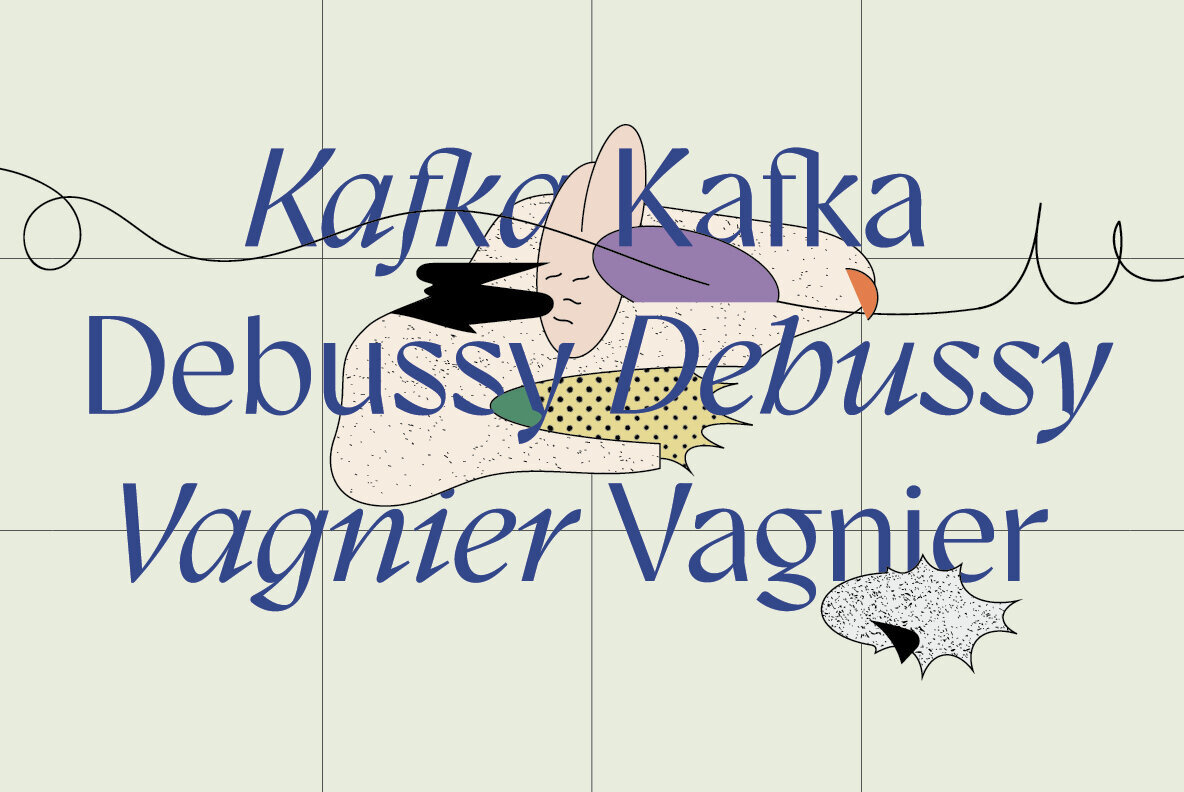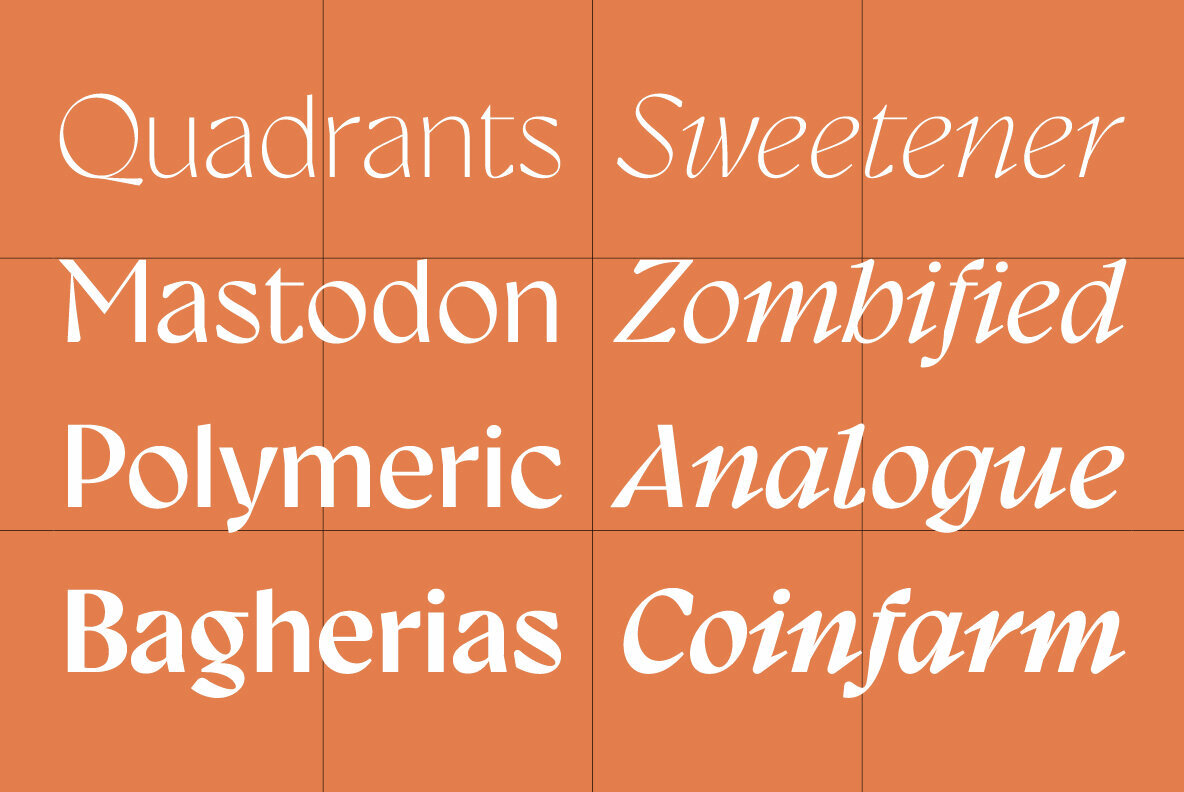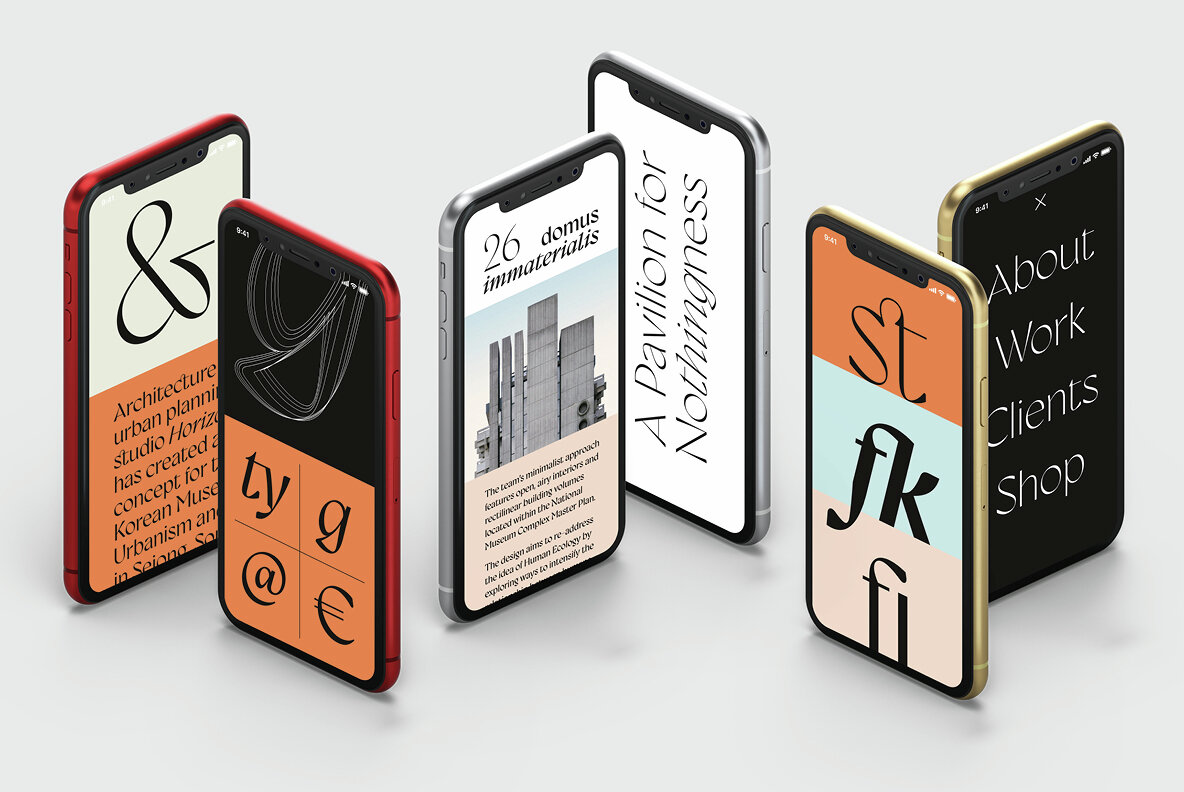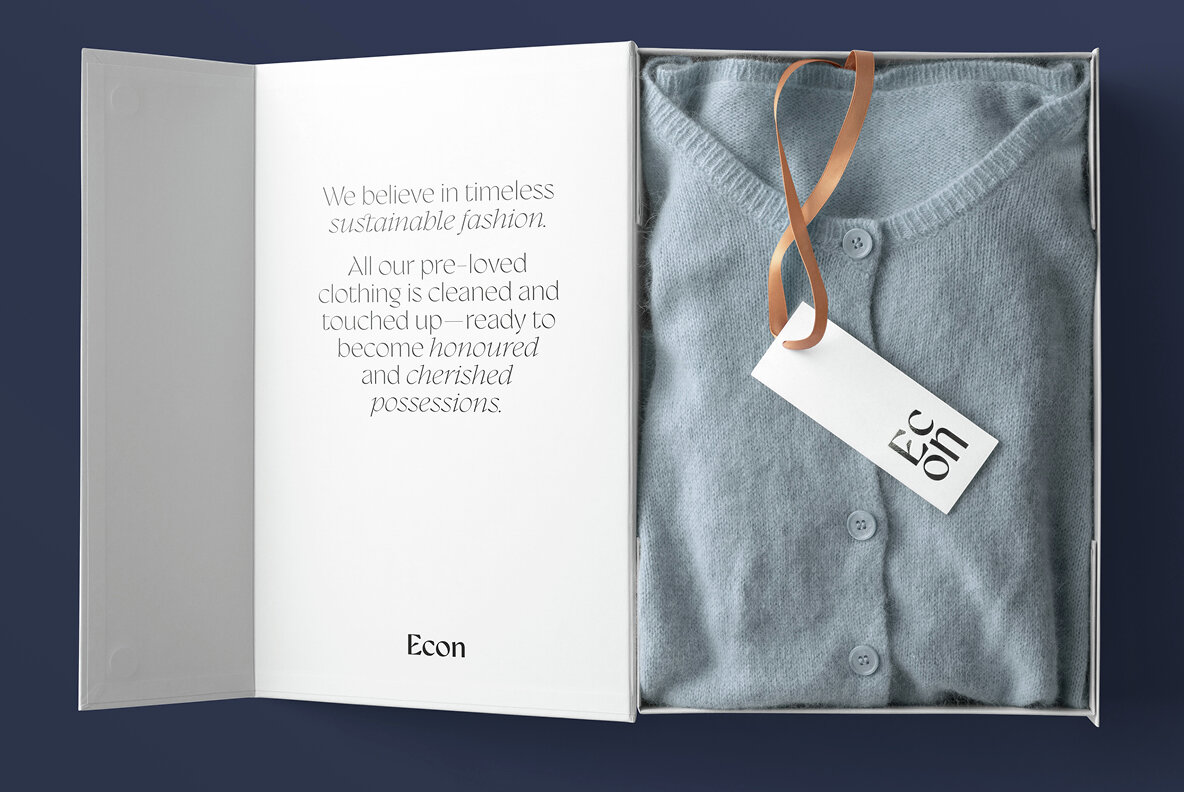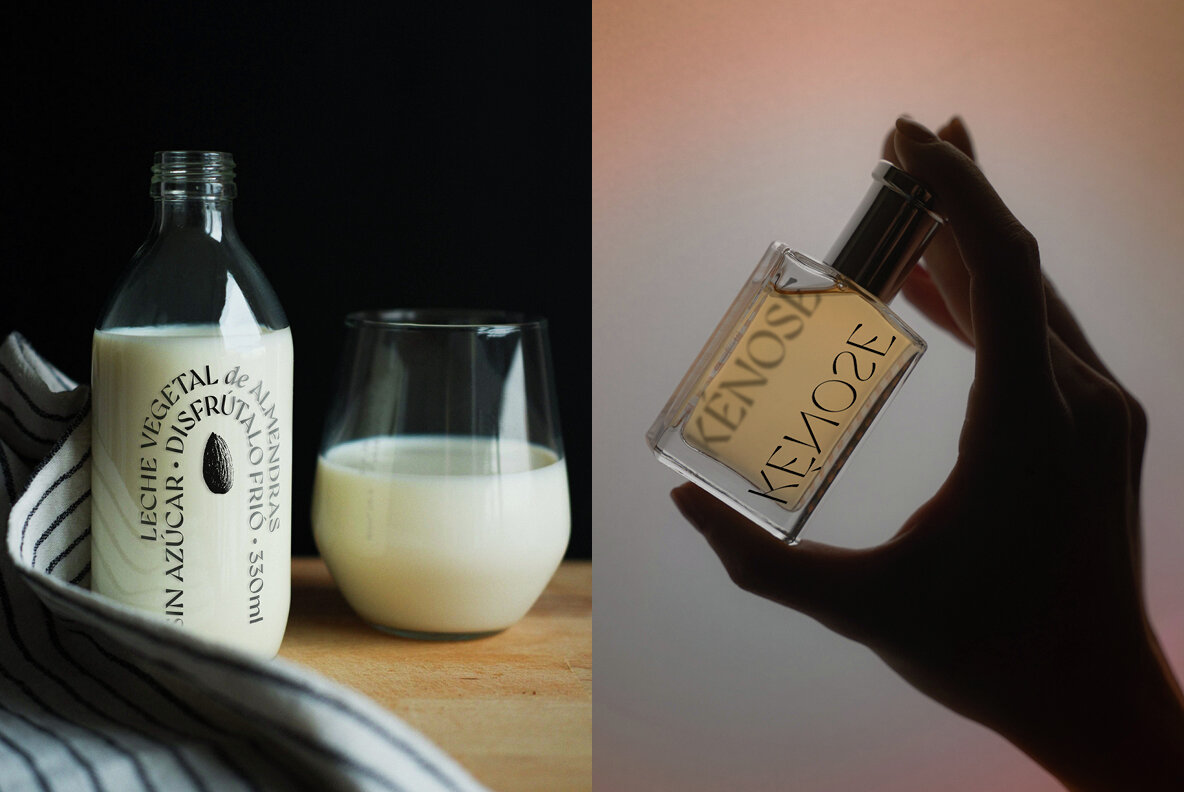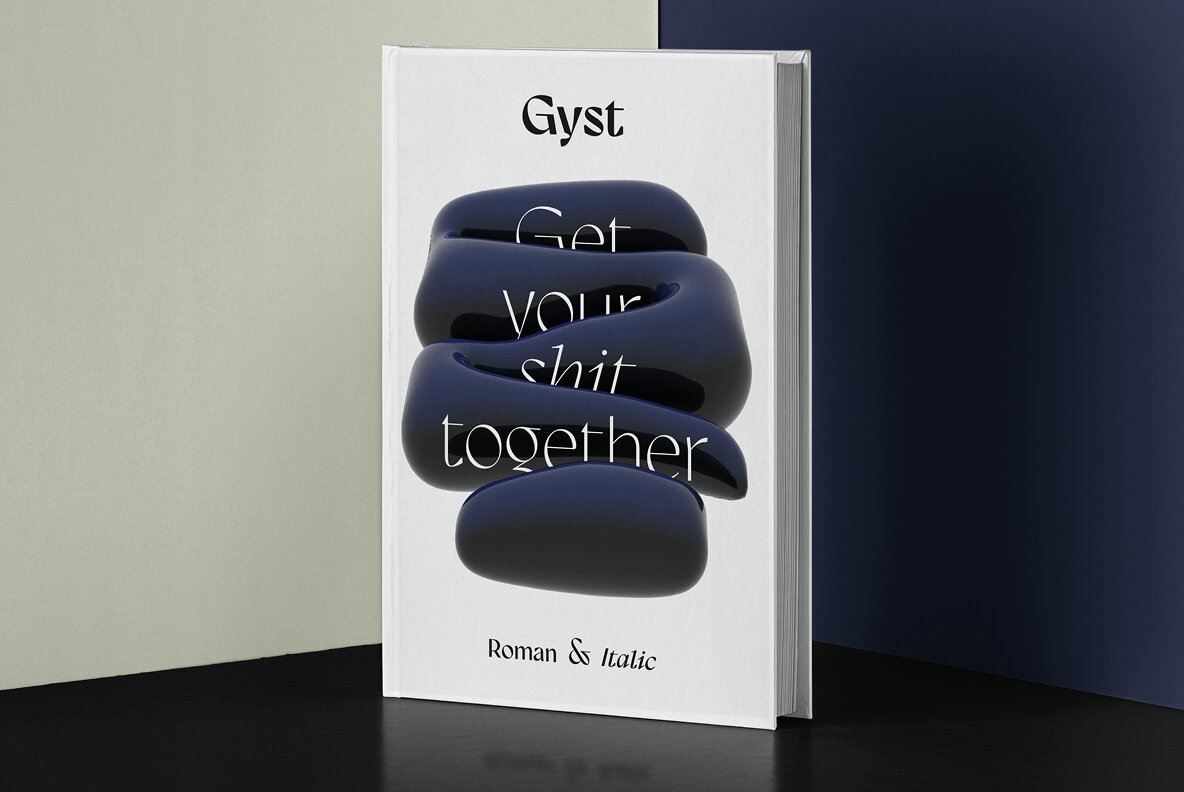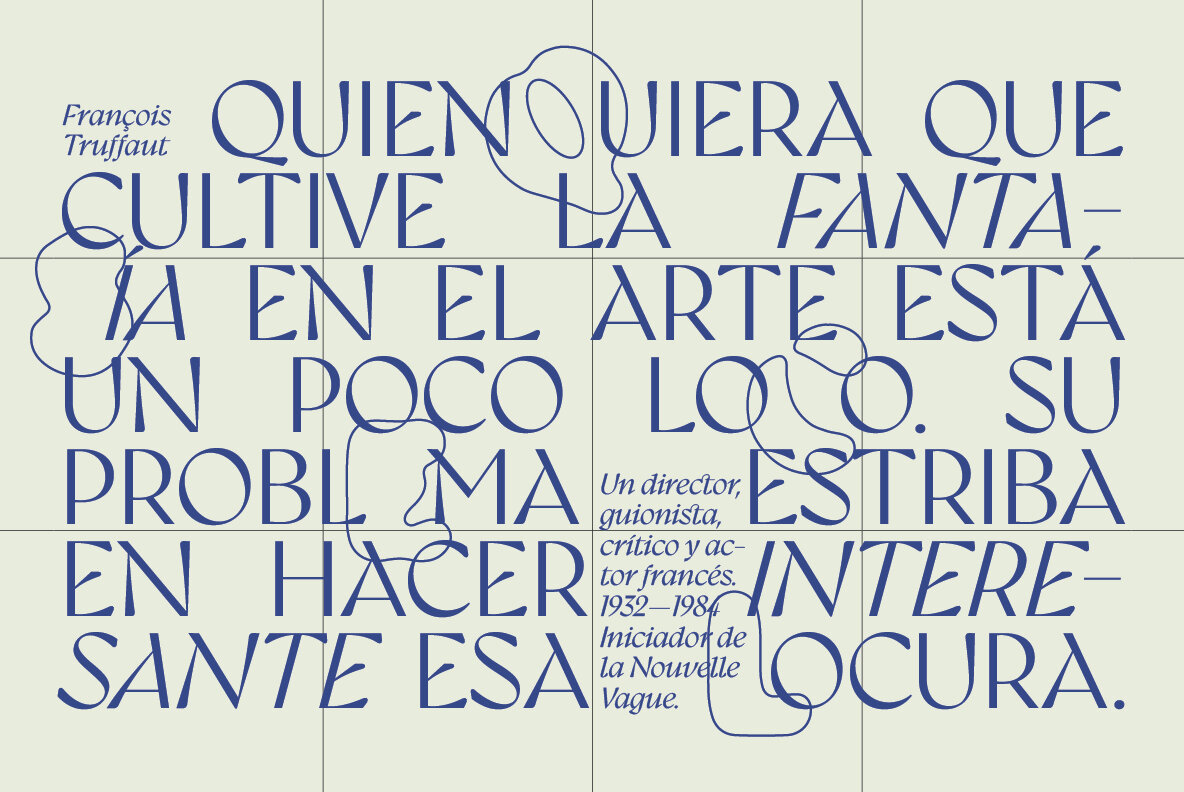
Gyst Font
Gyst is a neo-humanist Sans Serif typeface that artfully blends the principles of Grotesque and Antiqua. With its classic uprights and the serifs in its true italics, Gyst spans the arc from a modern humanistic sans serif to a captivating cursive serif. Gyst comes in four upright and italic static weights, all equipped with a whole lot of Alternates and Ligatures. It is also available as Variable Font.
Contrasting strokes and luscious, on the other hand, razor-edged terminals reflect a sense of grace, thriving at the intersection of geometric precision and flourishing eccentricity.
Made for body text as well as display use. In any situation, you will find the autonomous cursive posture to be a perfect playmate for the upright.
Located in a central district of Vienna, Austria, Roland Hörmann runs phospho – a studio that specializes in both graphic and type design. In 2007 he made his first serious attempts at type design, and in the following year, he published his first typeface, Adhesive Nr. Seven. Since then, he’s seen great succe...